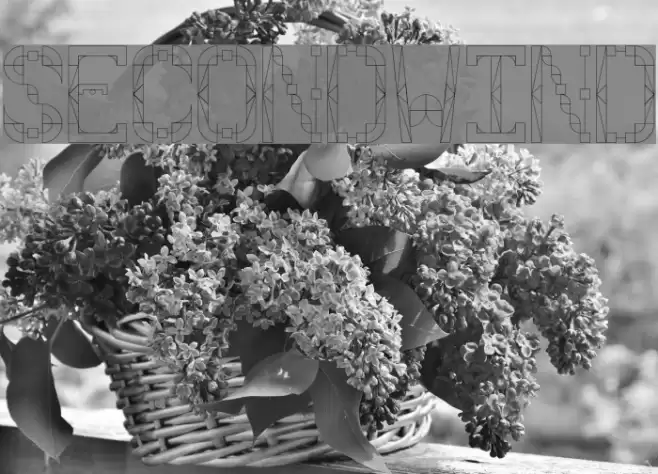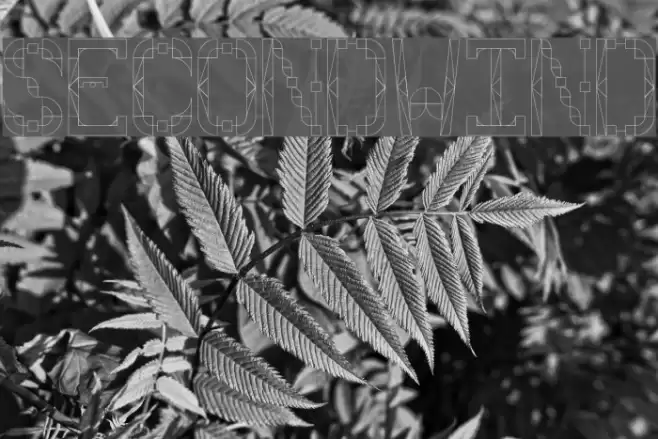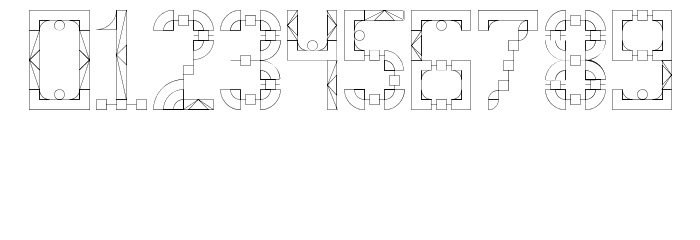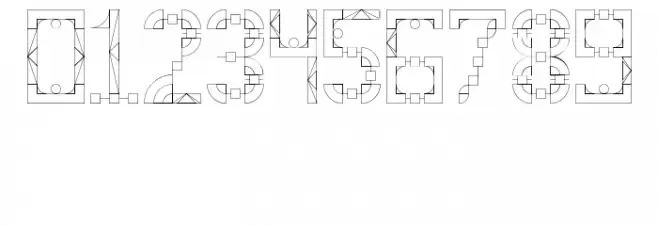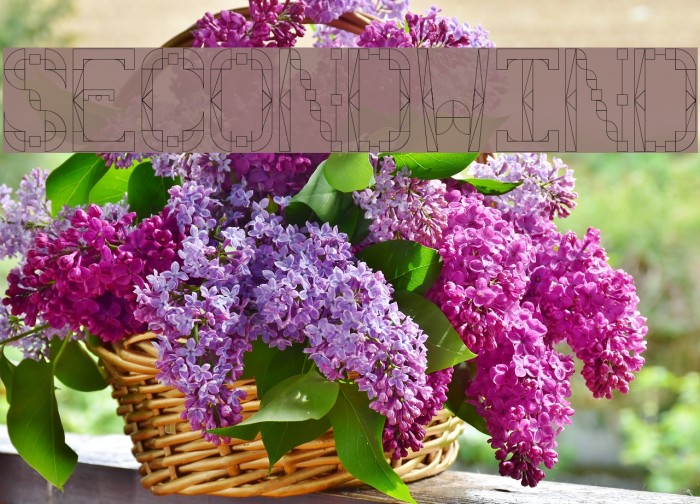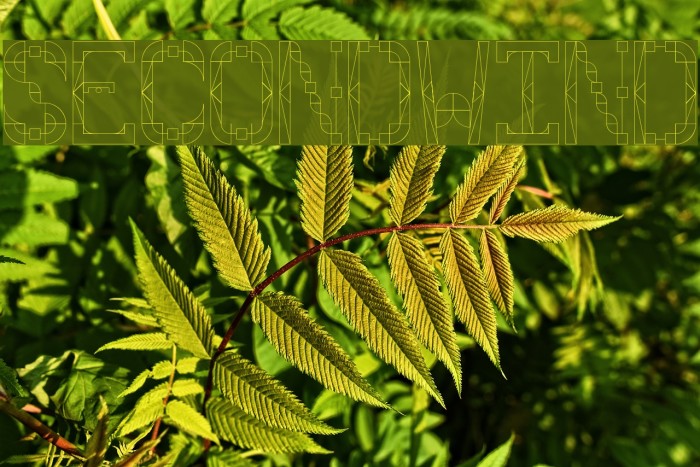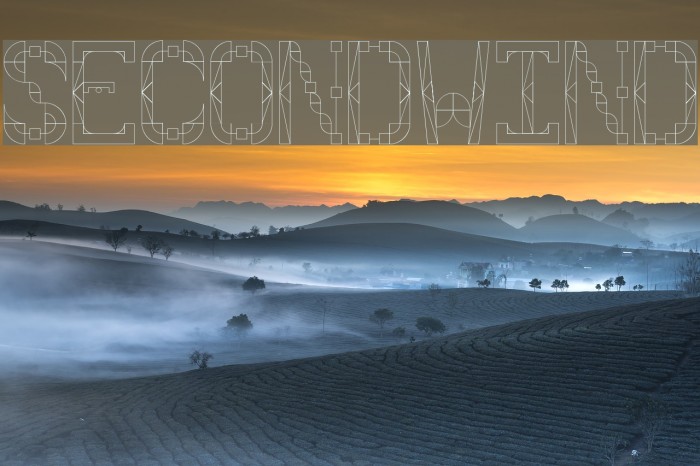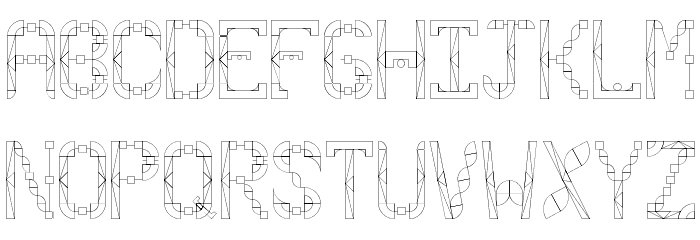
Second Wind Font
Second Wind Description
This font features a unique and intricate design with geometric patterns embedded within each character. The letters are constructed with a combination of straight lines and circular elements, giving it a technical and futuristic appearance. The overall look is highly decorative, with a focus on symmetry and precision. The font maintains a consistent structure across both uppercase and lowercase letters, as well as numbers and special characters. Its detailed design makes it stand out, suitable for projects that require a modern and innovative touch.
A decorative font with geometric patterns and a futuristic style from Decorative fonts.
- Proposed Projects: Ideal for tech-related branding, modern art projects, digital interfaces, and innovative product packaging.